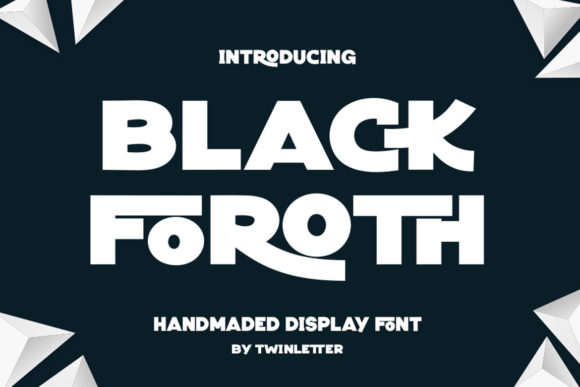
The Magic of Black Foroth Font: Elevate Your Designs with Confidence
I’ll never forget the time I was working on a branding project for a new coffee shop. I had the logo concept nailed, but something was missing – the right font. I scoured the internet, tried out dozens of fonts, but none seemed to capture the bold, playful vibe I was going for. That’s when I stumbled upon Black Foroth Font. It was like a breath of fresh air! The thick, bold letters instantly added a level of sophistication and fun to my design. In this article, I’ll share my love for Black Foroth Font, its features, and how to make the most of it in your designs.
An Honest Review of Black Foroth Font
- ✨ **Bold and eye-catching**: Black Foroth Font is perfect for making a statement. Its thick letters demand attention and add a level of professionalism to any design.
- ✅ **Versatile**: This font is suitable for a wide range of projects, from cards and branding to labels and more.
- 💡 **Easy to read**: Despite its boldness, Black Foroth Font remains surprisingly easy to read, even at smaller sizes.
While Black Foroth Font is an amazing font, it’s not perfect. Here are a few things to keep in mind:
- 🤔 **Limited use in body text**: Due to its boldness, Black Foroth Font is best used in headlines or titles. It may not be the best choice for longer body text.
- ⚠️ **May not be suitable for all languages**: As with any font, some characters or glyphs may not be supported or may render differently.
One of the best things about Black Foroth Font is its support for OpenType features and glyphs. Here are a few tips for getting the most out of these features:
- 💡 **Stylistic alternates**: Experiment with different stylistic alternates to add some variety to your text.
- 🔍 **Glyphs**: Use the glyph panel to access special characters, such as ligatures or ornaments.
The Backstory of Black Foroth Font
Black Foroth Font was designed with one goal in mind: to create a bold, eye-catching font that’s perfect for making a statement. The designer, a typography enthusiast, wanted to create a font that’s both fun and professional. The result is a font that’s perfect for a wide range of projects, from branding to crafting.
Q: Is Black Foroth Font suitable for body text?
A: While Black Foroth Font is easy to read, it’s best used in headlines or titles. For longer body text, you may want to choose a different font.